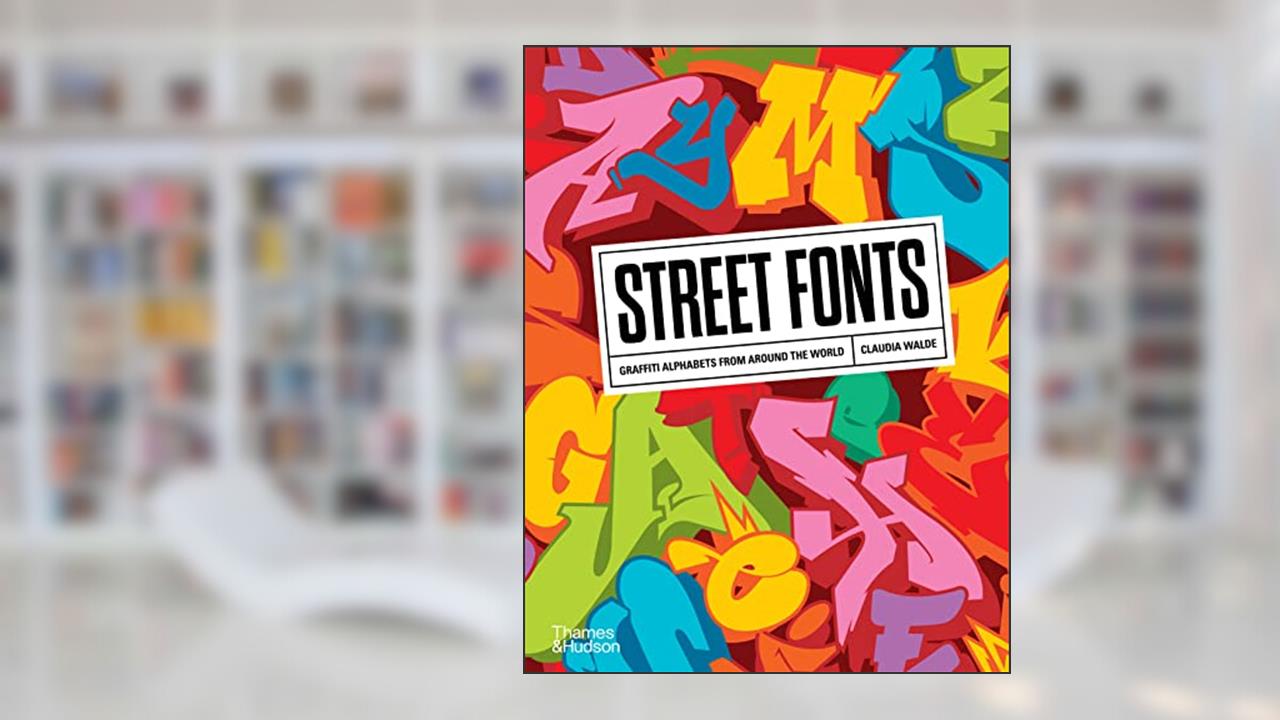
Street Fonts
Graffiti Alphabets from Around the World
WALDE CLAUDIA
In the vibrant and chaotic tapestry of urban landscapes, Street Fonts: Graffiti Alphabets from Around the World emerges as a captivating chronicle of expressive freedom and cultural identity. Claudia Walde, the visionary author, takes you on a global journey, showcasing the mesmerizing variety of styles that adorn our streets, whispering the stories of those who dare to create and rebel through paint and spray. 🌍✨️
As you flip through the pages of this compelling work, the raw energy of graffiti leaps off the paper, pulling you into a world where every letter pulsates with the heartbeat of its city. From the dense urban jungles of New York to the colorful corners of São Paulo, Walde marries art and language in a profound exploration of how graffiti transcends mere vandalism. It is a voice, a shout, a passionate declaration of existence, resonating in the very fabric of society.
Walde doesn't just document; she curates an emotional dialogue. The exuberant visuals erupt like fireworks, each letter a piece of a larger puzzle connecting us to the artists' souls. As you encounter these street fonts, you can't help but reflect-who were these artists? What drove them to risk so much to express themselves? Dive deeper and you find the answers in the nuances of their strokes, the daring of their placements, and the stories behind their tags. These aren't just letters; they are symbols of resistance, identity, and community. 🎨💥
Readers have taken to this work with fervor, with opinions ranging from admiration to critique. Some hail it as a groundbreaking collection that challenges preconceptions about graffiti, while others argue it romanticizes an often marginalized art form. Those who have traversed its pages find themselves enamored by the meticulous craftsmanship and passion that fuels each artist's unique style. One fan exclaimed it offers a brilliant compilation that not only delights the eyes but also enriches the mind, igniting a newfound appreciation for urban art. ❤️✨️
Yet, it's not without controversy. Critics question whether graffiti should be celebrated or regulated, stirring debate on public space and artistic expression. Can we truly regard it as art when it is often illegal, defying societal norms? Walde walks this fine line gracefully, inviting discussions that stretch far beyond the covers of her book. 🤔
Street Fonts is more than just a visual feast; it challenges you to confront your biases about graffiti. It beckons you to explore the historical and socio-political contexts that surround urban art, especially in a time when cultural identities are continually evolving. As graffiti artists continue to innovate, so too does the dialogue surrounding their work, becoming an essential part of contemporary discourse.
In a remarkable intersection of art, history, and cultural commentary, Claudia Walde's Street Fonts stands as an essential tome, beckoning from the shelves with the weight of urgency. This book demands your attention, your reflection, and your action to see the world through the eyes of those who script their legacies on urban canvases. So, to bypass this vibrant exploration would be to deny yourself access to a world bursting with emotion, creativity, and rebellious spirit. 🌟🔤
This treasure not only provides a gateway into the artistry of graffiti but empowers you to embrace the raw stories that may shape your perception of urban life. Whether you're an artist, a cultural enthusiast, or someone simply looking to expand your horizon, Walde's work is essential-a clarion call to understand graffiti not just as a transient act of rebellion, but as a powerful form of expression that speaks volumes about our humanity.